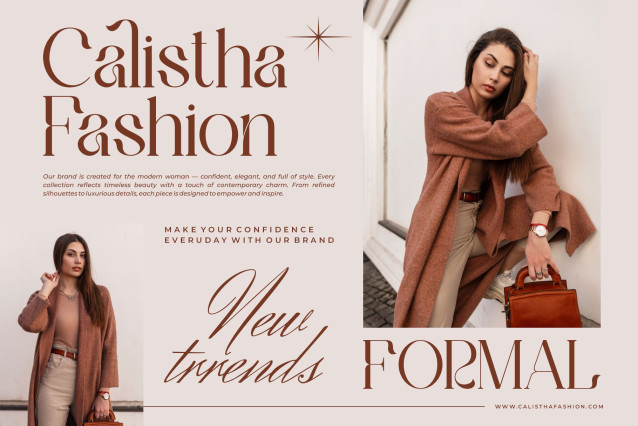
Chania Font
Chania Serif is a modern and minimalist font type for all branding and logo designs. This modern and minimalist Serif font has a beautiful character. This font is suitable for invitation card designs, cool logos, movie titles, movie names, business cards, book titles, brand names, and various other designs. Chania Serif is a smooth serif font that exudes sophistication and the moment. Its stylish ligatures and alternates make this font a perfect partner for any project.
FEATURE :
– Ligature and Alternate